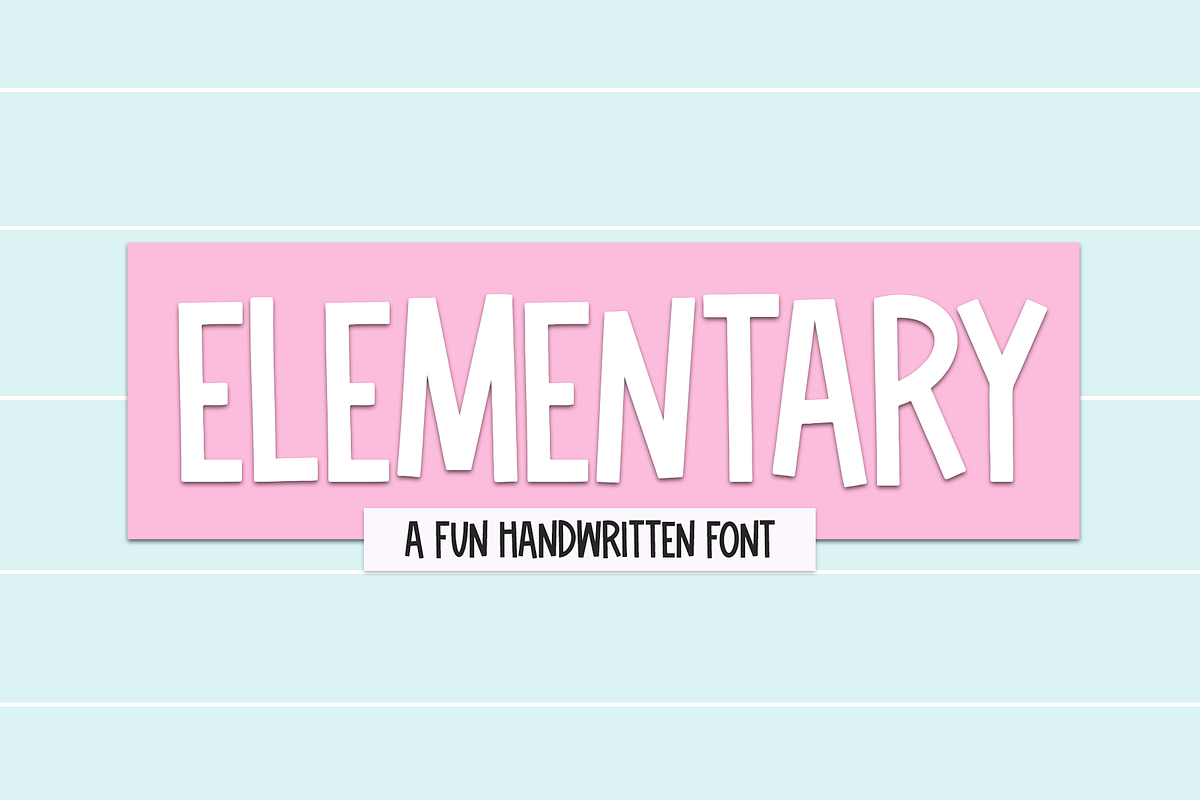
The Elementary | Fun Handwritten Font Free Download is a playful and charming typeface designed to bring a lighthearted, creative touch to your designs. Featuring a casual handwritten style with quirky, rounded letterforms, this font is perfect for creating fun logos, invitations, social media graphics, and more. Whether you're designing for a children's brand, casual event, or personal project, Elementary adds a unique and joyful vibe to your work.
Elementary | Fun Handwritten Font Free Download is ideal for designers looking to create engaging, creative designs with a playful, handwritten feel. Perfect for branding, educational projects, and any project that needs a cheerful touch, this font will make your work stand out. Download it today and bring a fun, fresh vibe to your creative projects with Elementary!